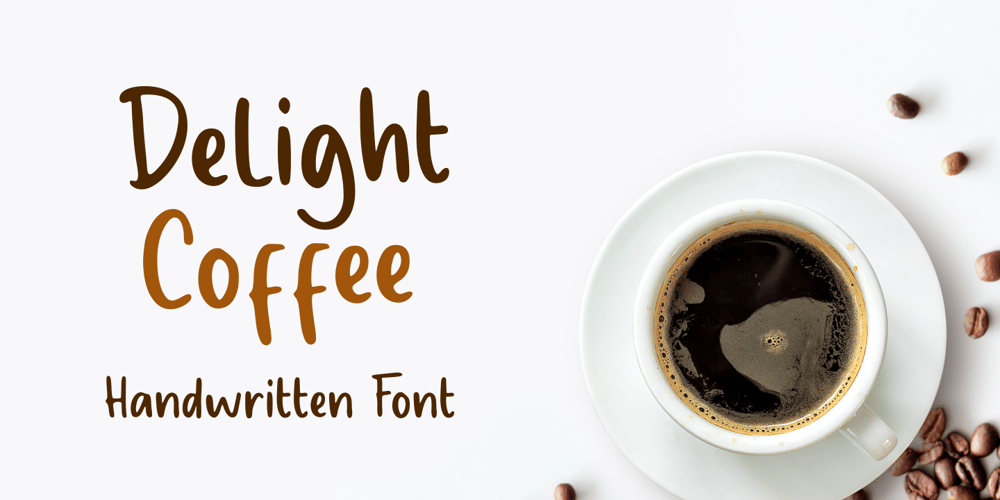
Delight Coffee
Delight Coffee font
Delight Coffee Font Family was designed by Muhamad Yusron Billah and published by Sronstudio. Delight Coffee contains 1 styles and family package options. Delight Coffee is a fun Handwritten Font, this font Is perfect for product packaging, product designs, label, photography, watermark, special events, or anything.Delight Coffee comes with uppercase and lowercase letters, multilingual symbols, numerals, punctuation.Thank You, Sronstudio